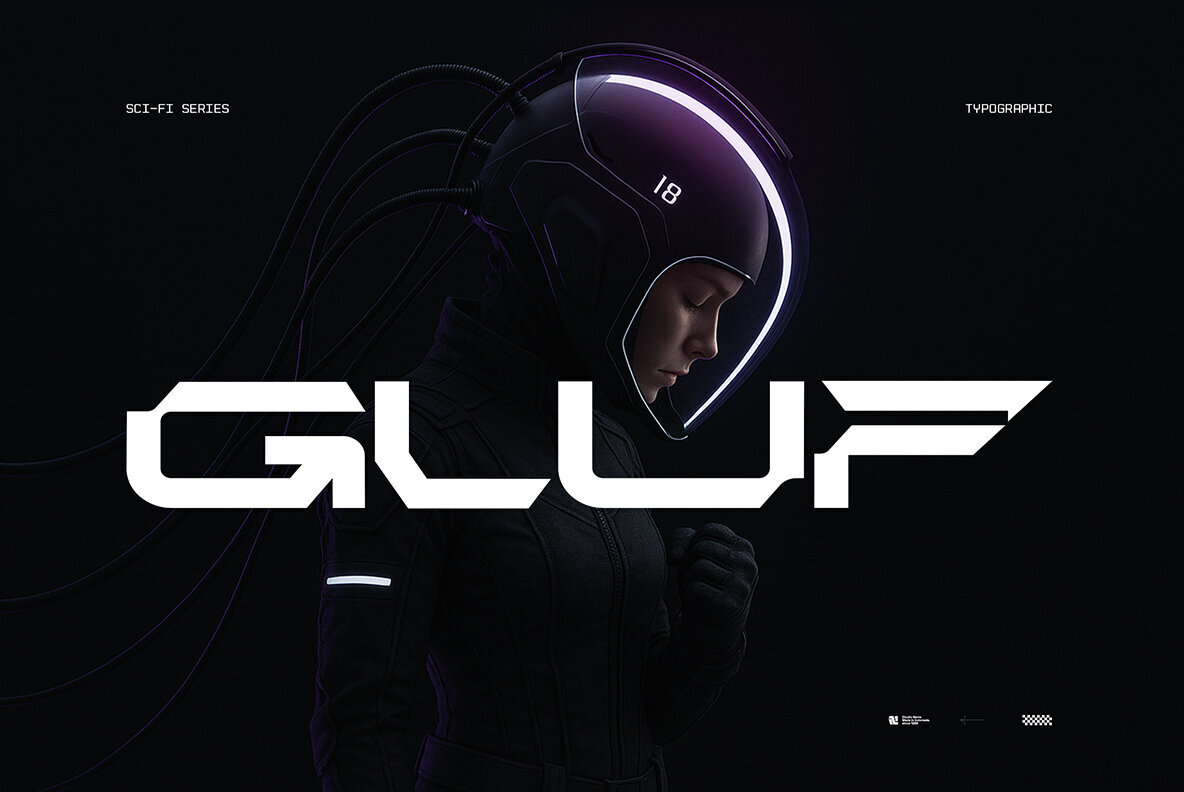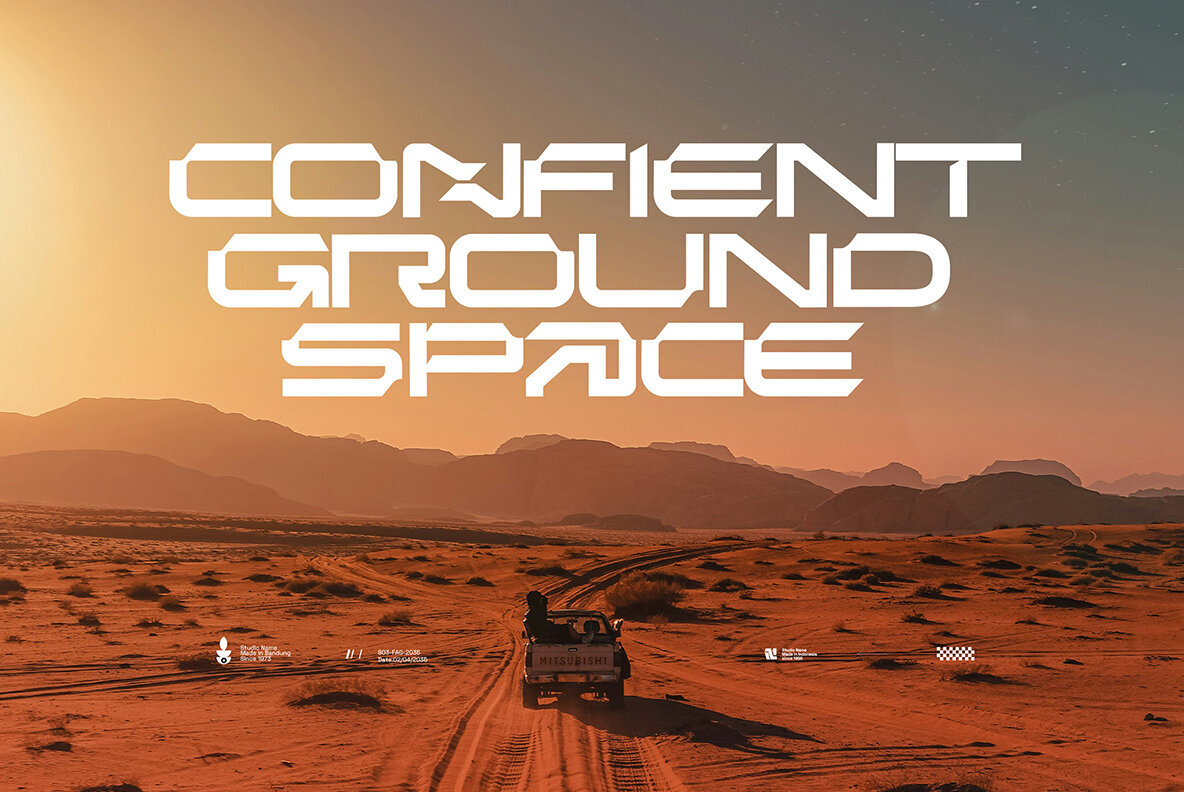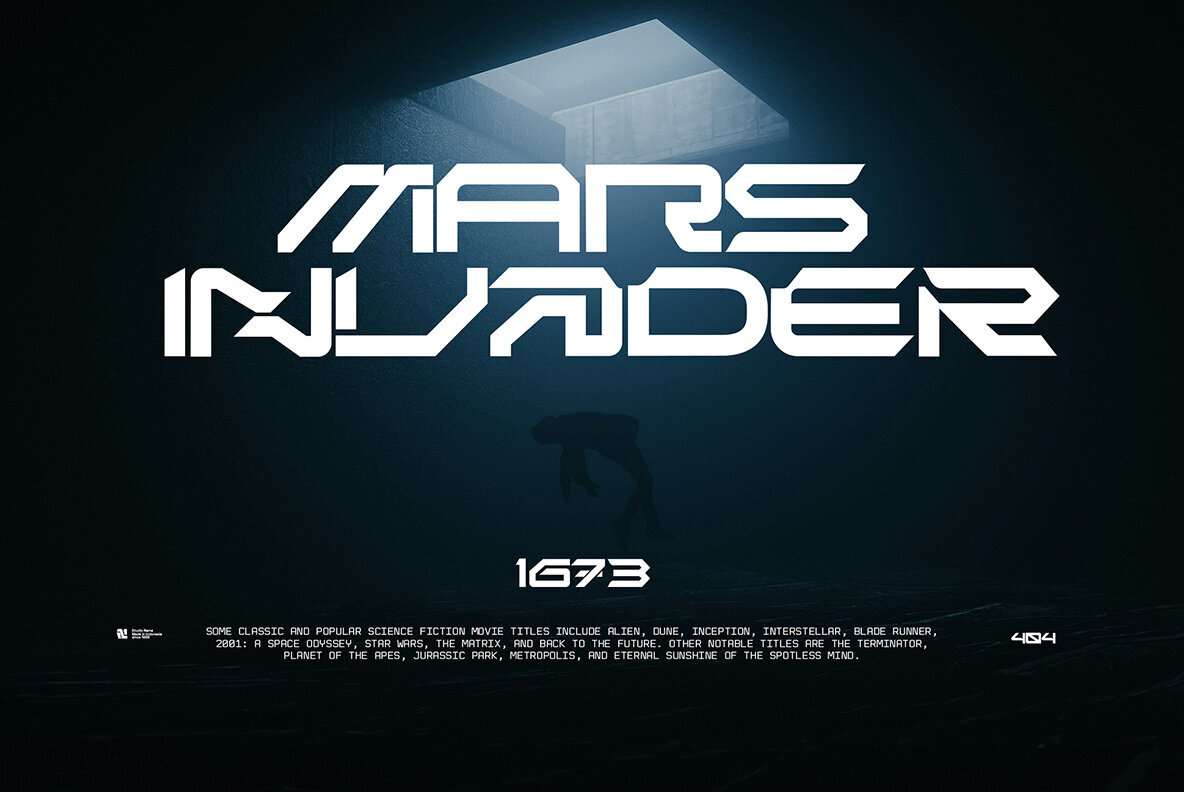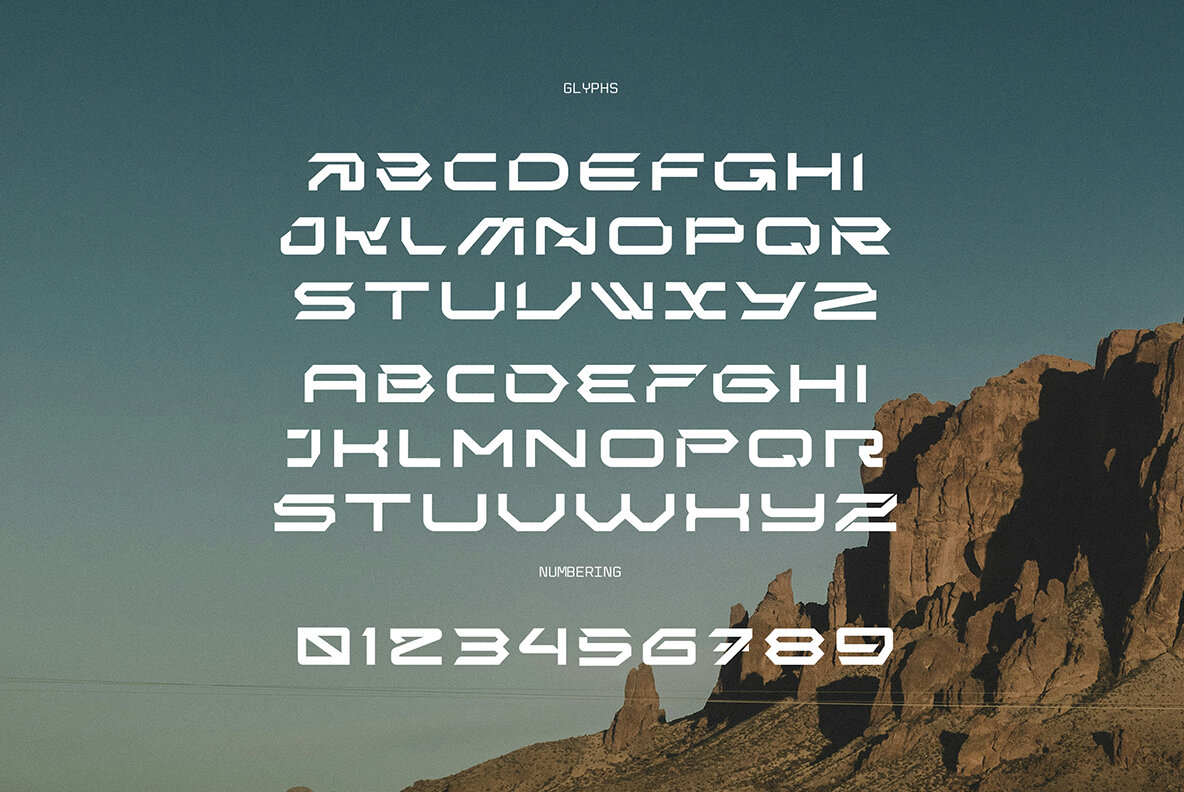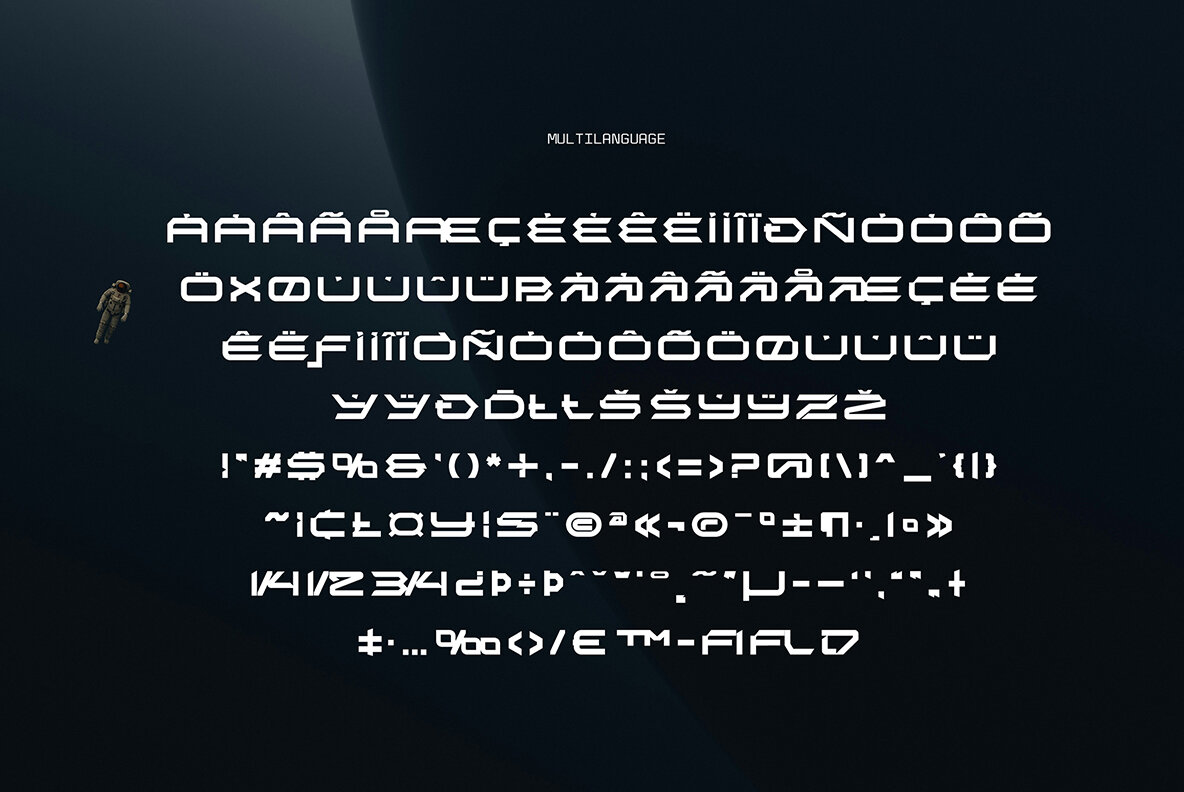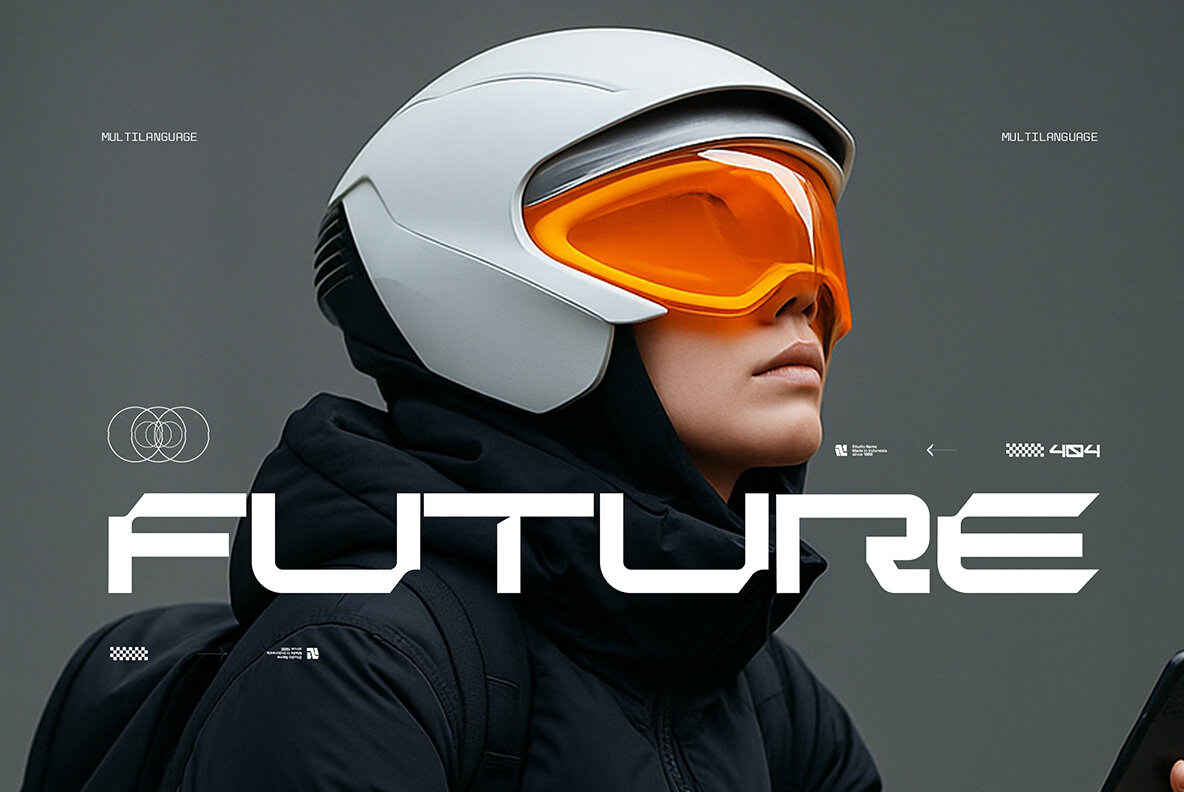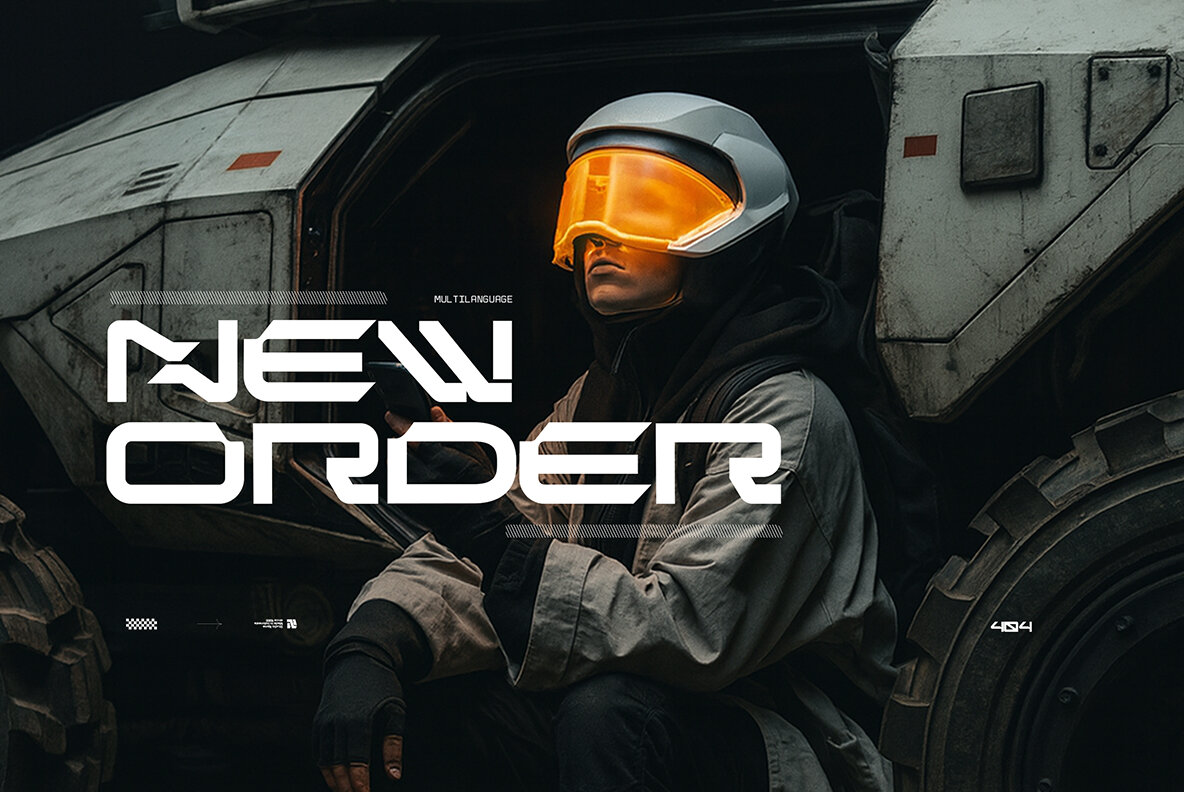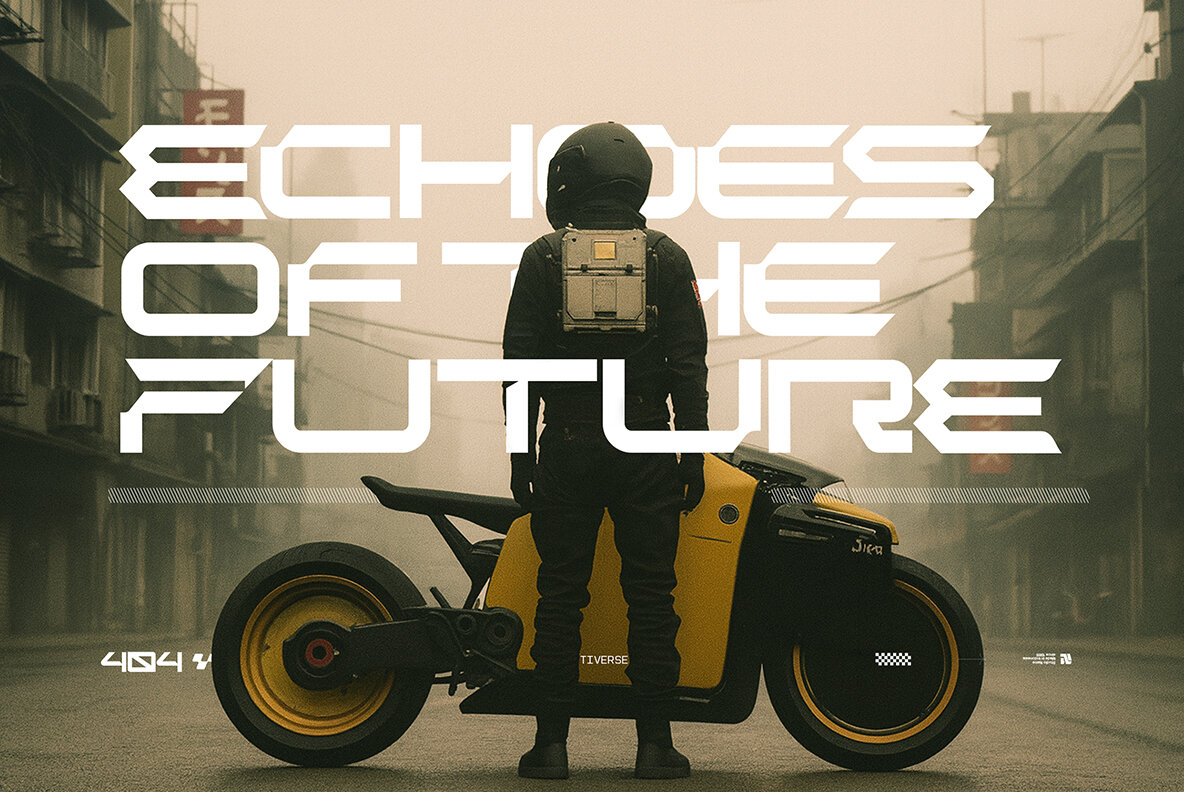
Gluf Font
Gluf Regular
Gluf is a clean, geometric display font that combines bold precision with minimalist aesthetics. Its sharp lines and balanced curves create a visual identity rooted in both industrial strength and modern elegance. Simple and memorable, Gluf’s all-caps style ensures your text remains clear and striking, even in large-scale designs. This typeface is suited for creative projects across various mediums, including logos, posters, album covers, gaming titles, apparel, and technology-focused branding. Its structured forms support readability while delivering a distinctive, contemporary feel that appeals to digital designers and forward-thinking brands.Gluf Futuristic Display Font